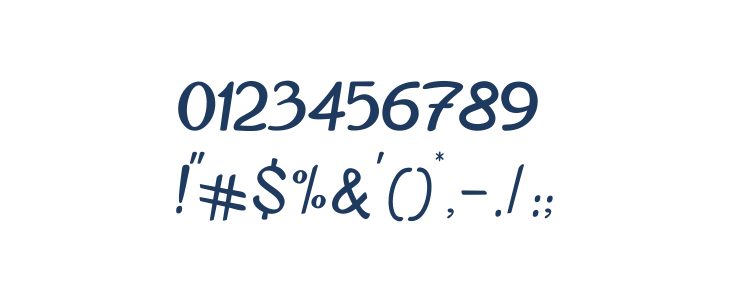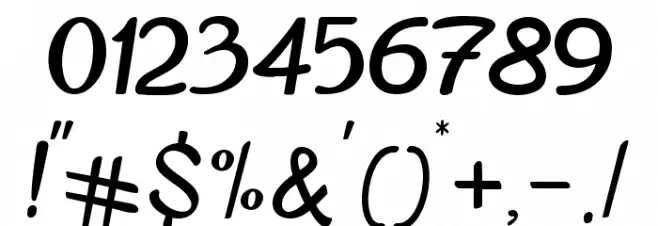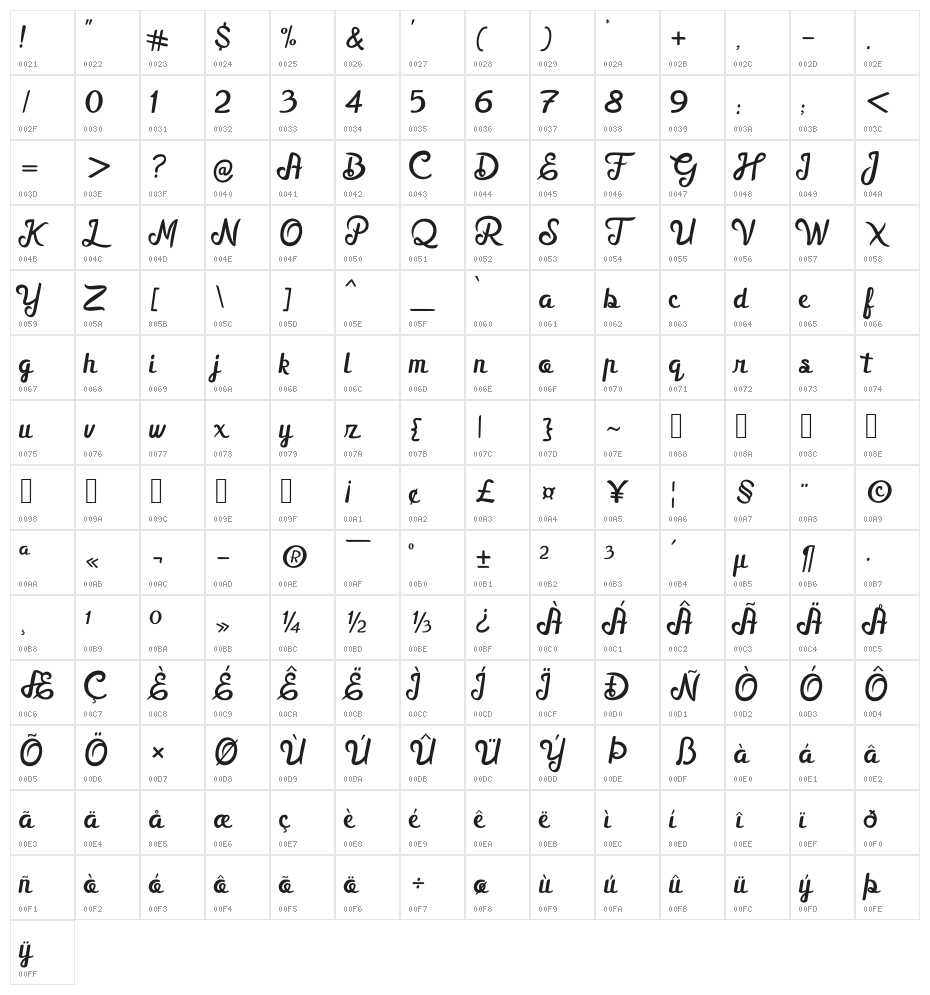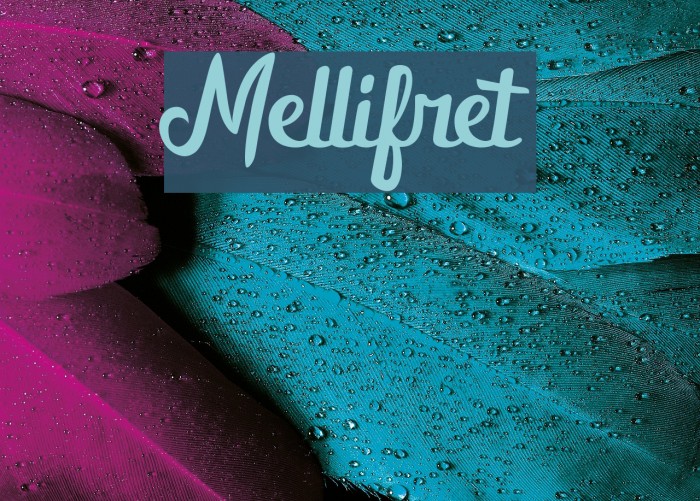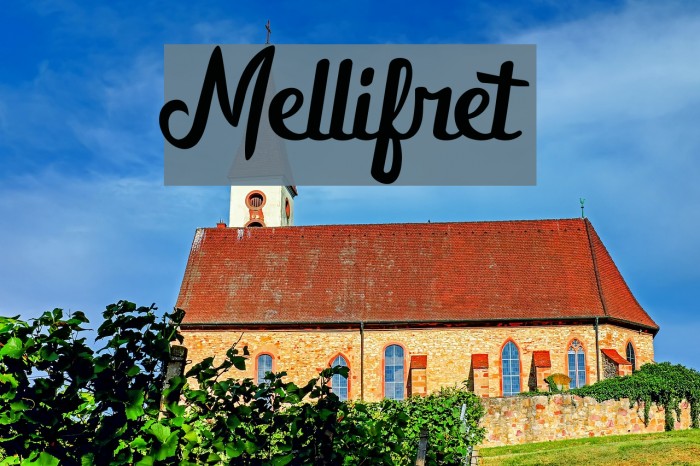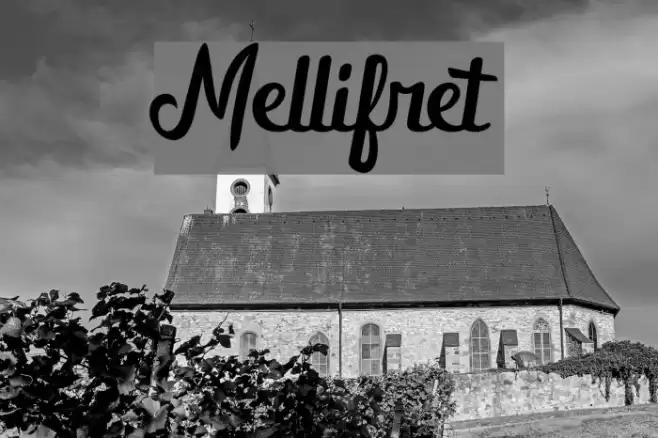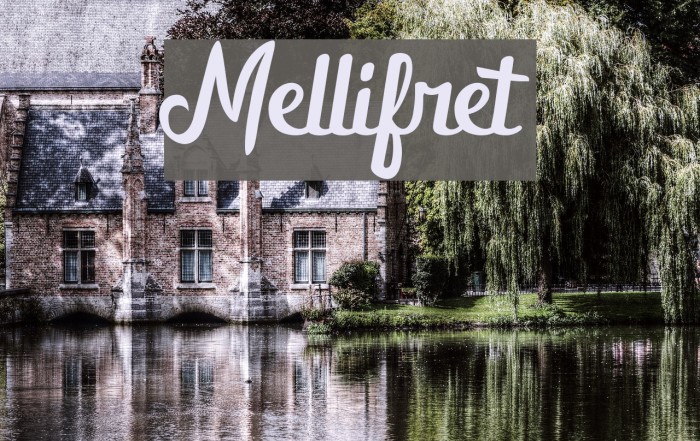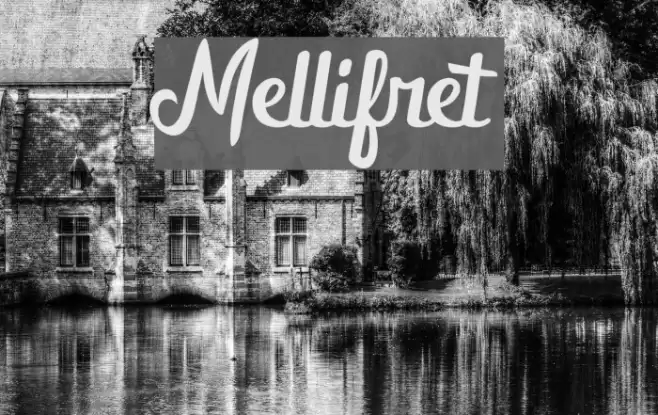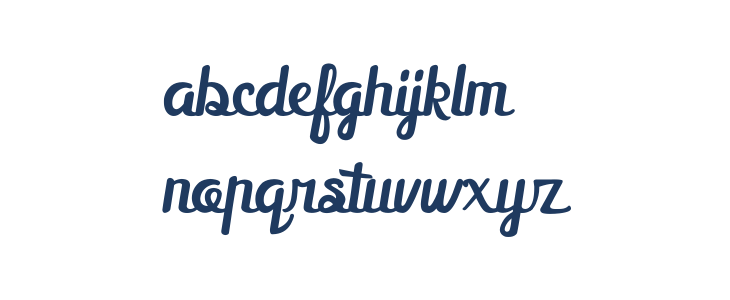
Mellifret Font
Mellifret Description
This font features a lively and flowing script style, characterized by its elegant curves and smooth connections between letters. The uppercase letters are bold and dynamic, with a playful yet sophisticated appearance. The lowercase letters maintain a consistent flow, enhancing readability while retaining a sense of movement. Numbers are well-proportioned and align seamlessly with the overall aesthetic. Special characters are thoughtfully designed, complementing the font's artistic flair. This font exudes a sense of creativity and elegance, making it suitable for a variety of design projects.
| Use Case | Logos, Invitations, Artistic Projects |
| Proposed Projects | Ideal for wedding invitations, greeting cards, branding, and artistic posters. |